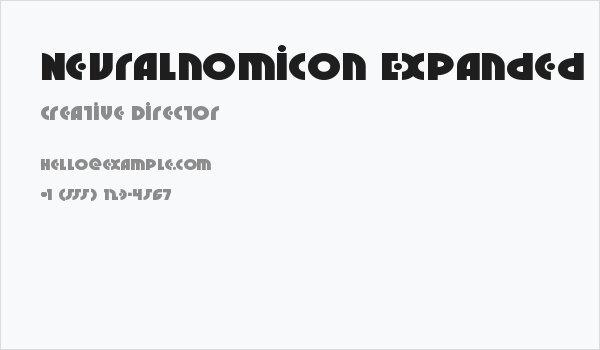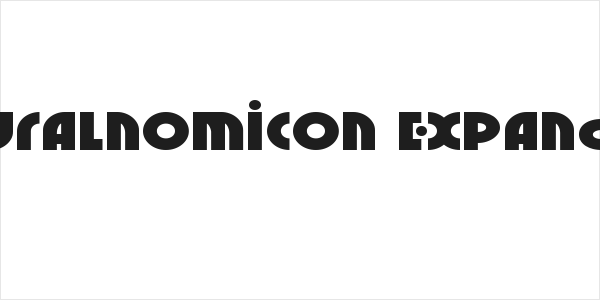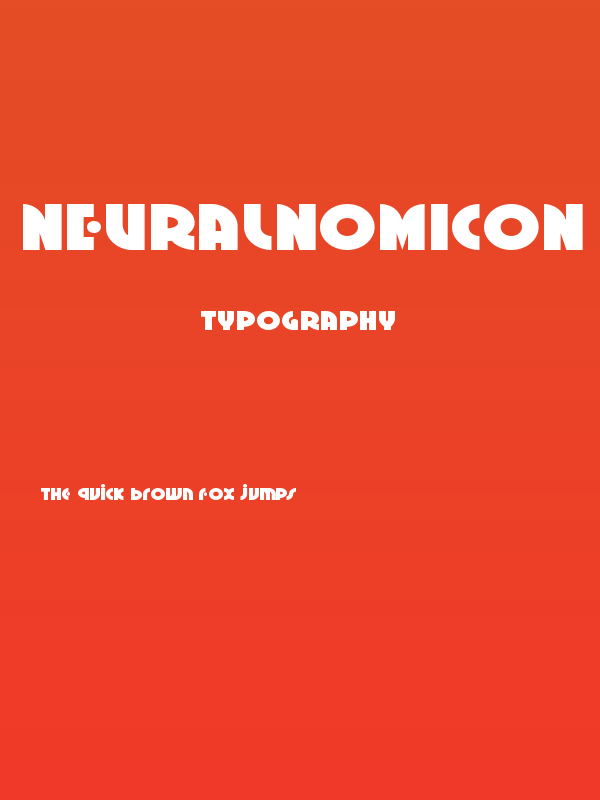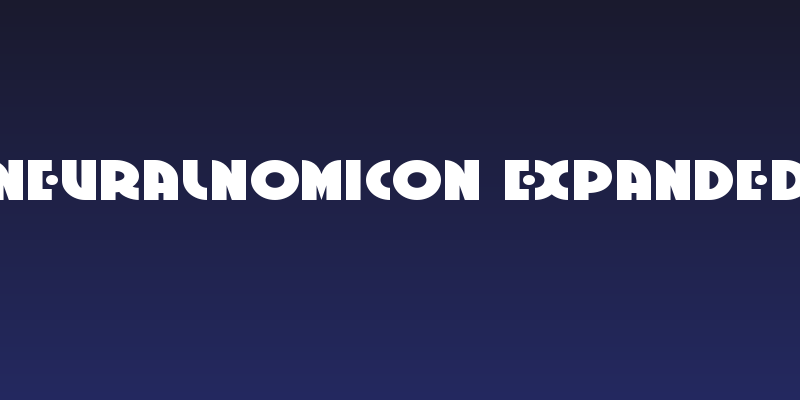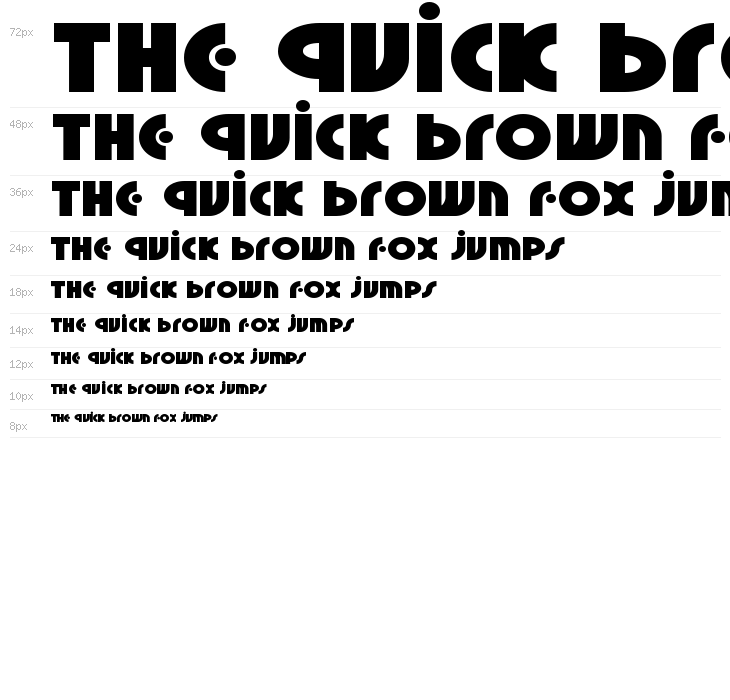
Neuralnomicon Expanded Font
Neuralnomicon Expanded Description
This font features a bold and futuristic design with geometric shapes and high contrast. The characters are uniquely stylized with circular cutouts and sharp angles, creating a distinctive and modern appearance. The uppercase and lowercase letters maintain a consistent style, with the lowercase mirroring the uppercase in form and structure. Numbers and special characters follow the same design principles, ensuring uniformity across all glyphs. The font's expanded width and bold weight make it ideal for attention-grabbing displays.